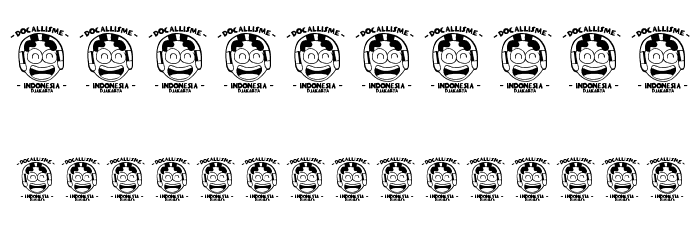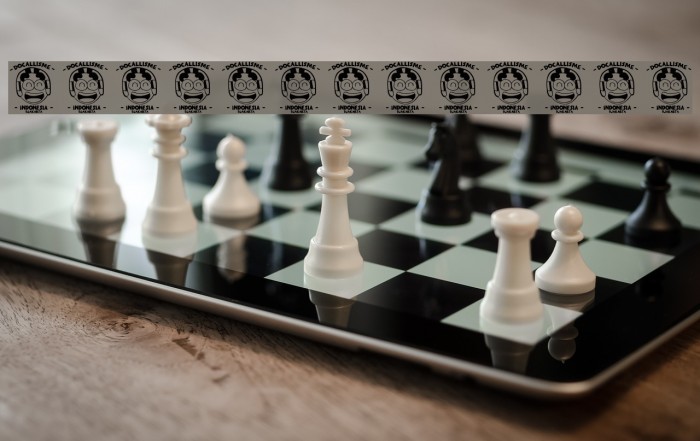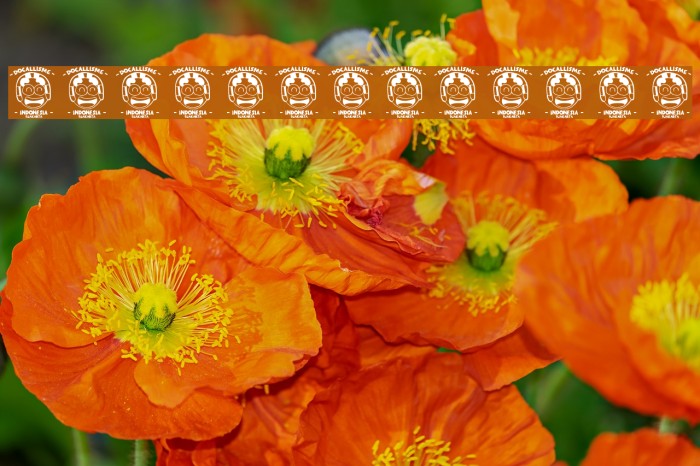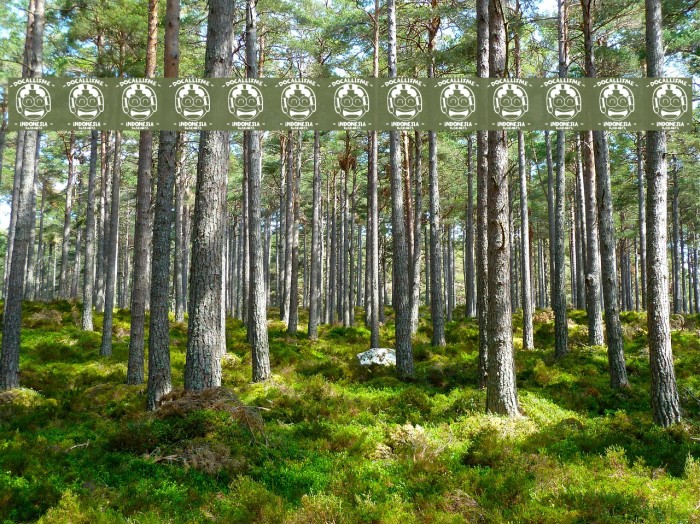
SOEKARNO-HATTA Font
| Stile generale | Playful, Creative |
| Caso d'uso | Headlines, Logos, Branding |
| Progetti proposti | Ideal for children's books, playful branding, logos, and eye-catching headlines. |